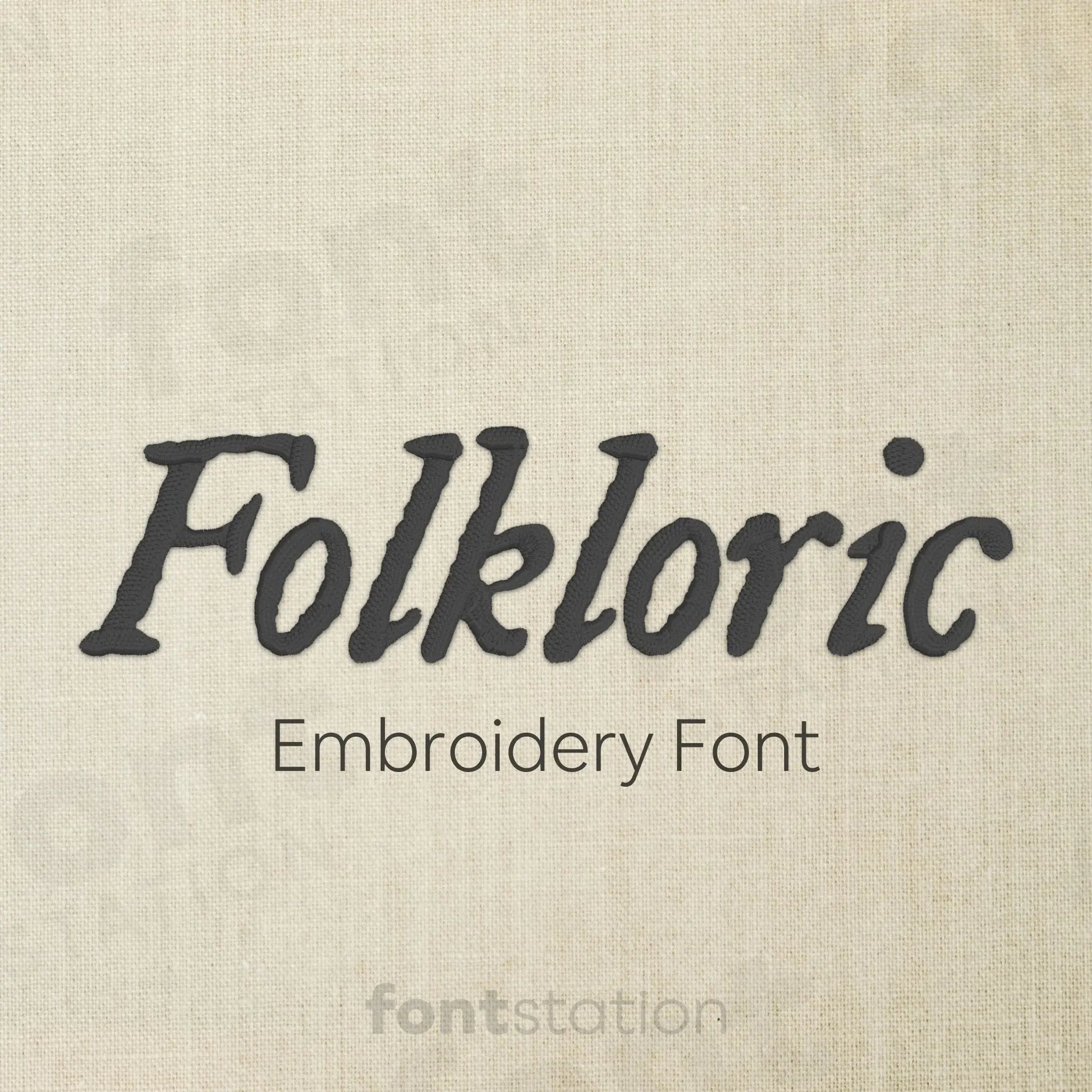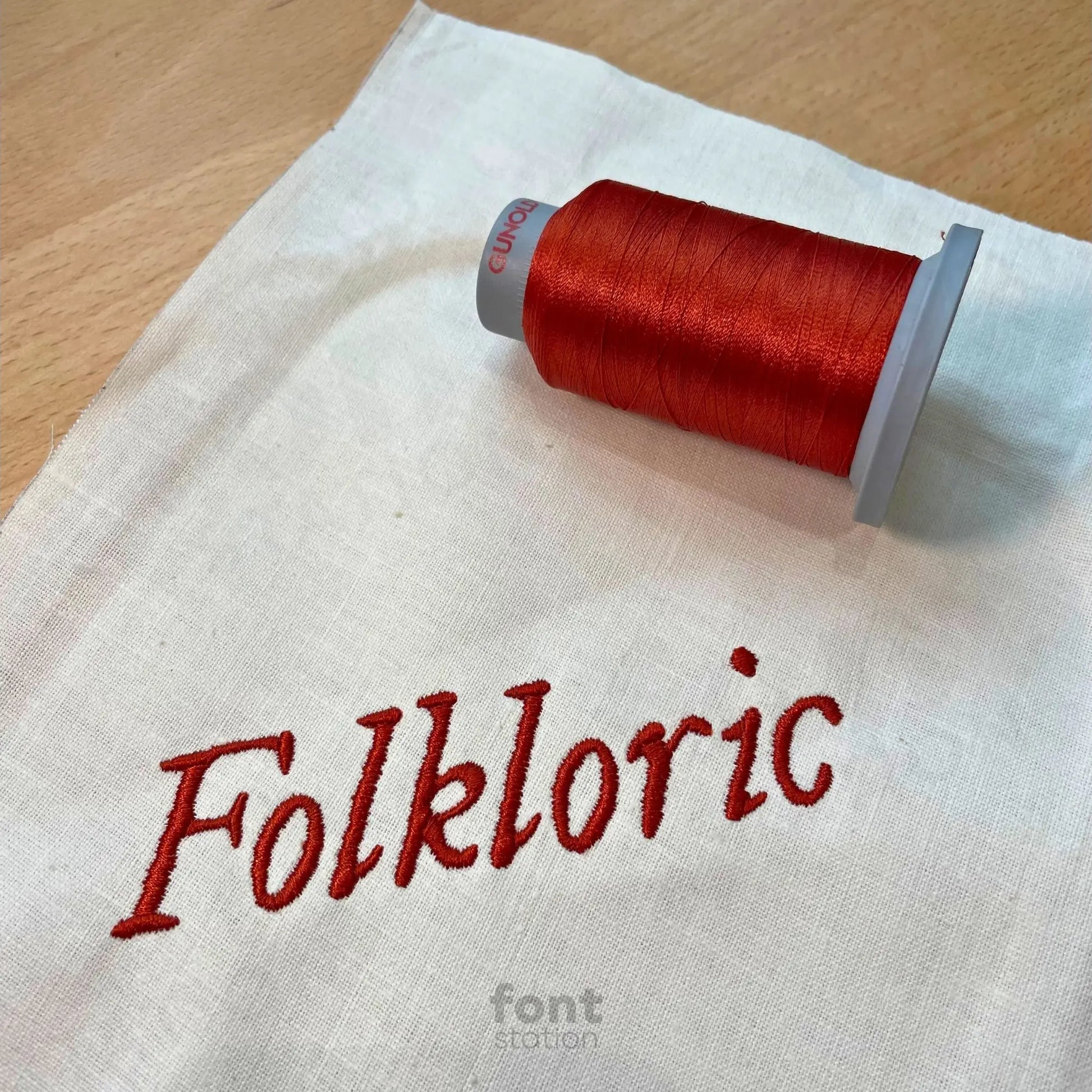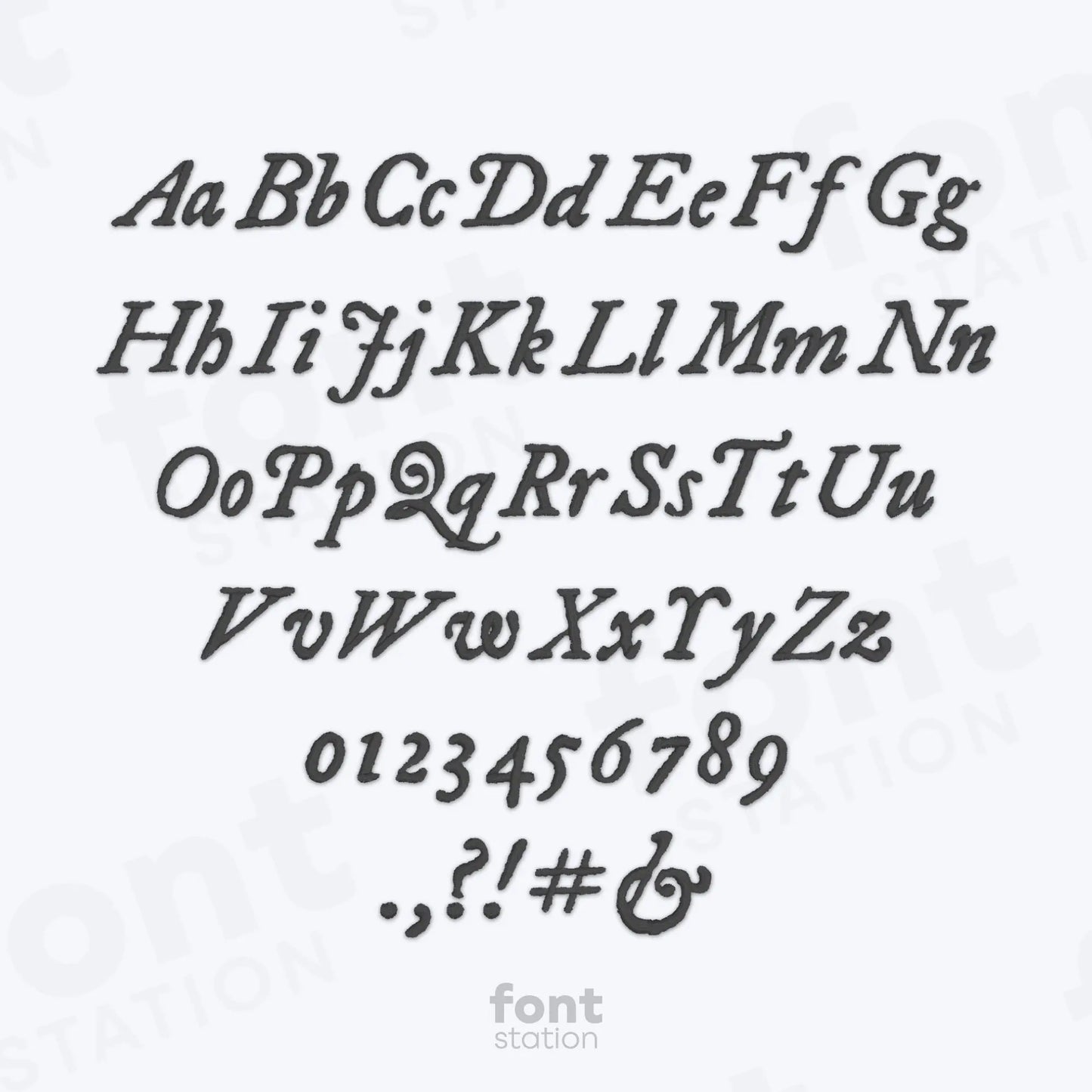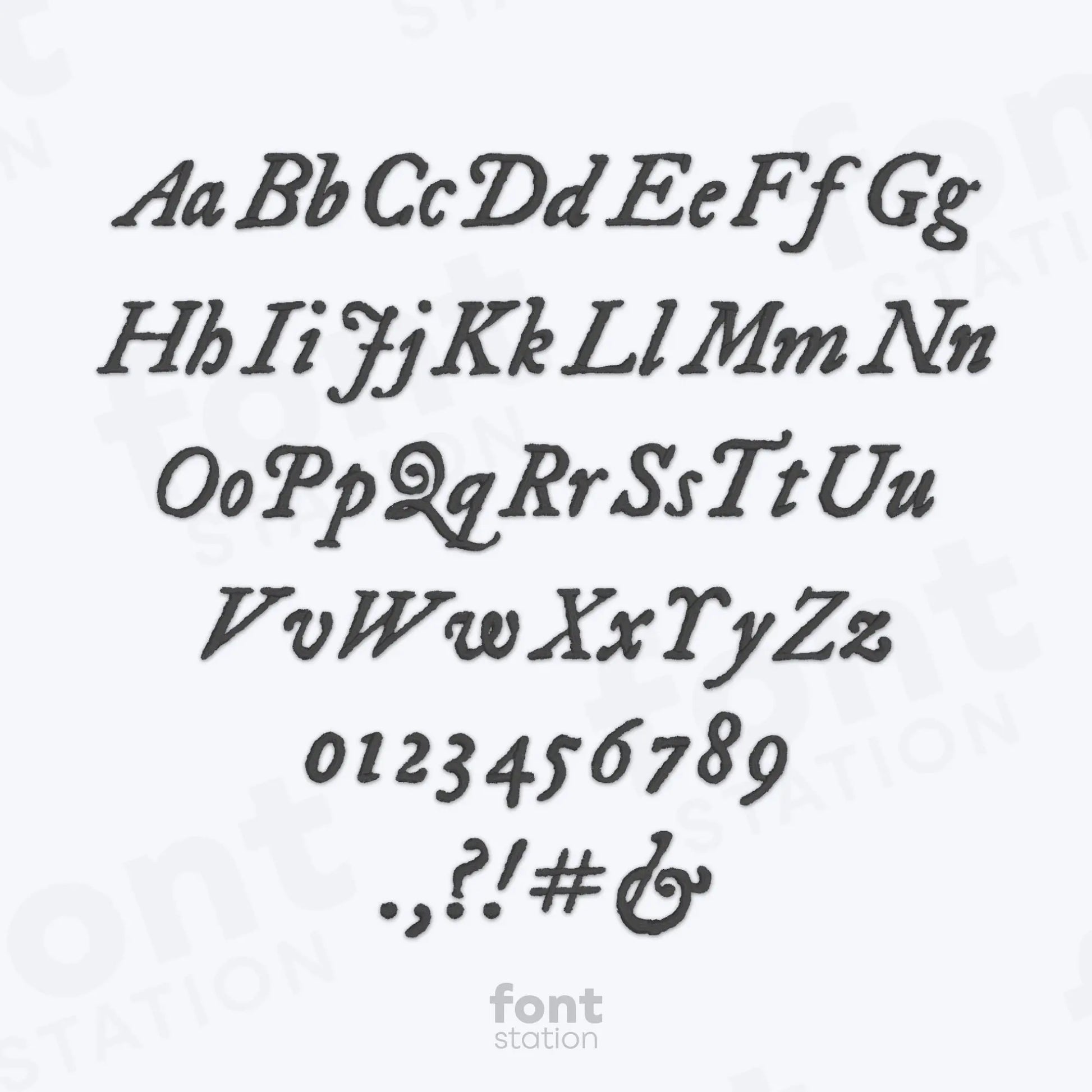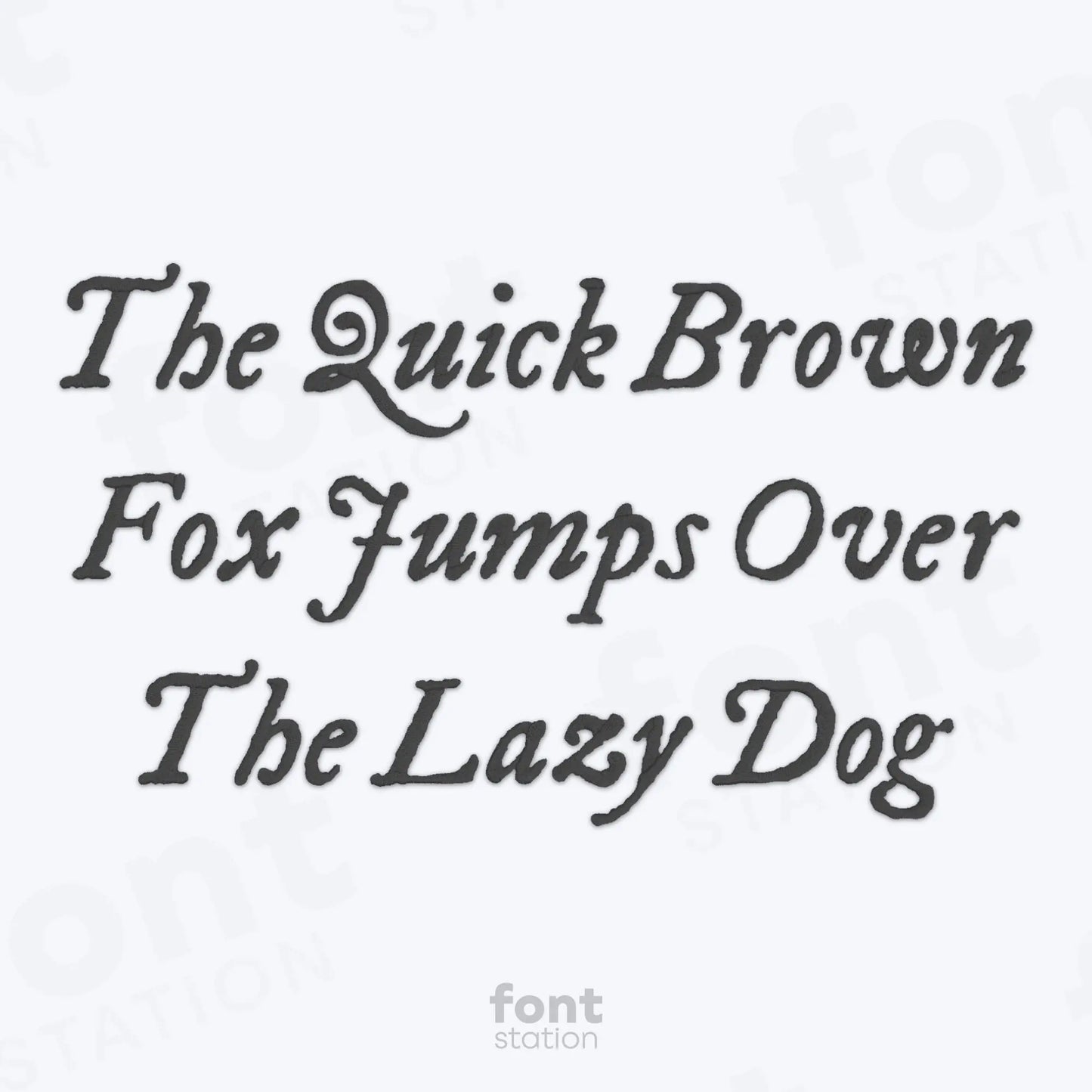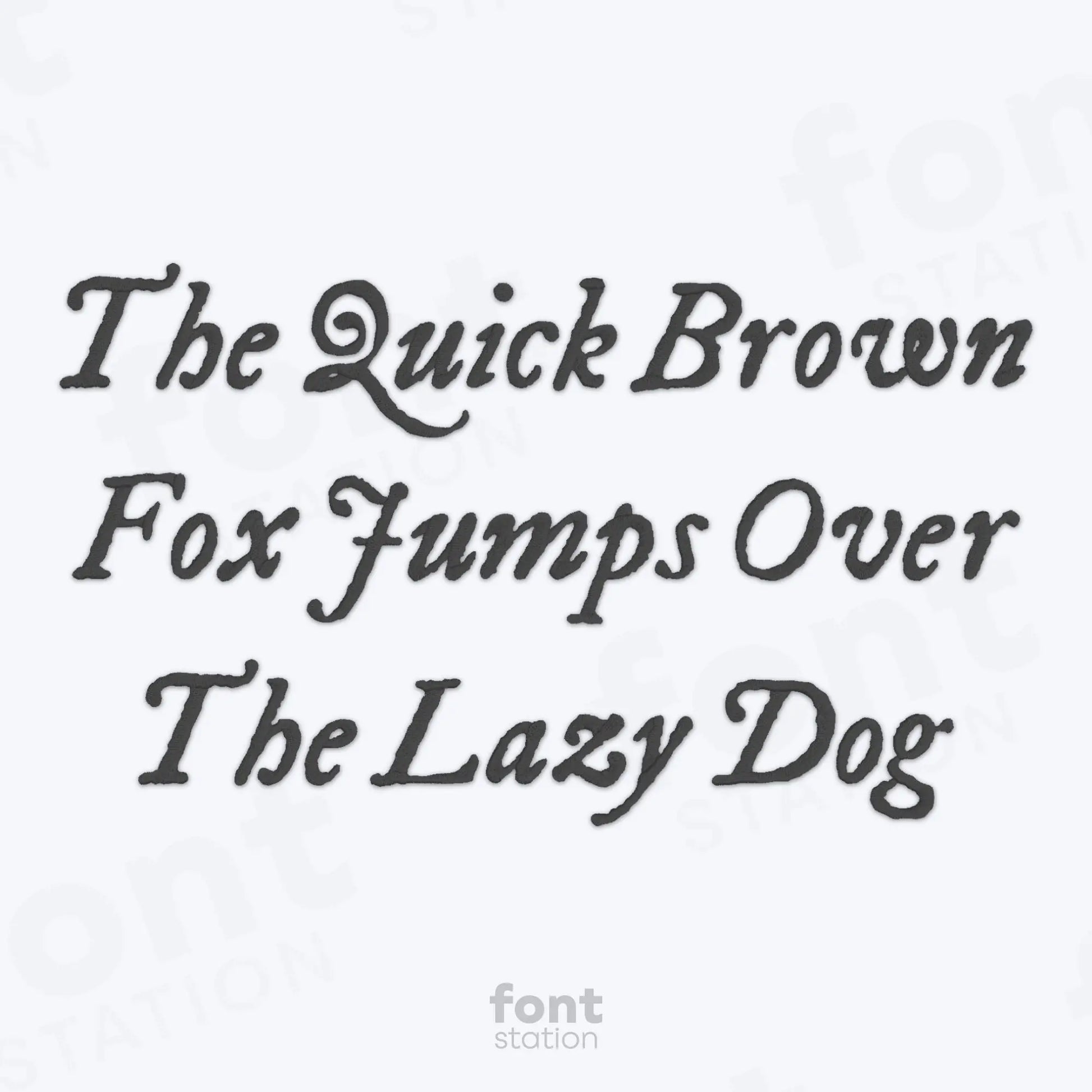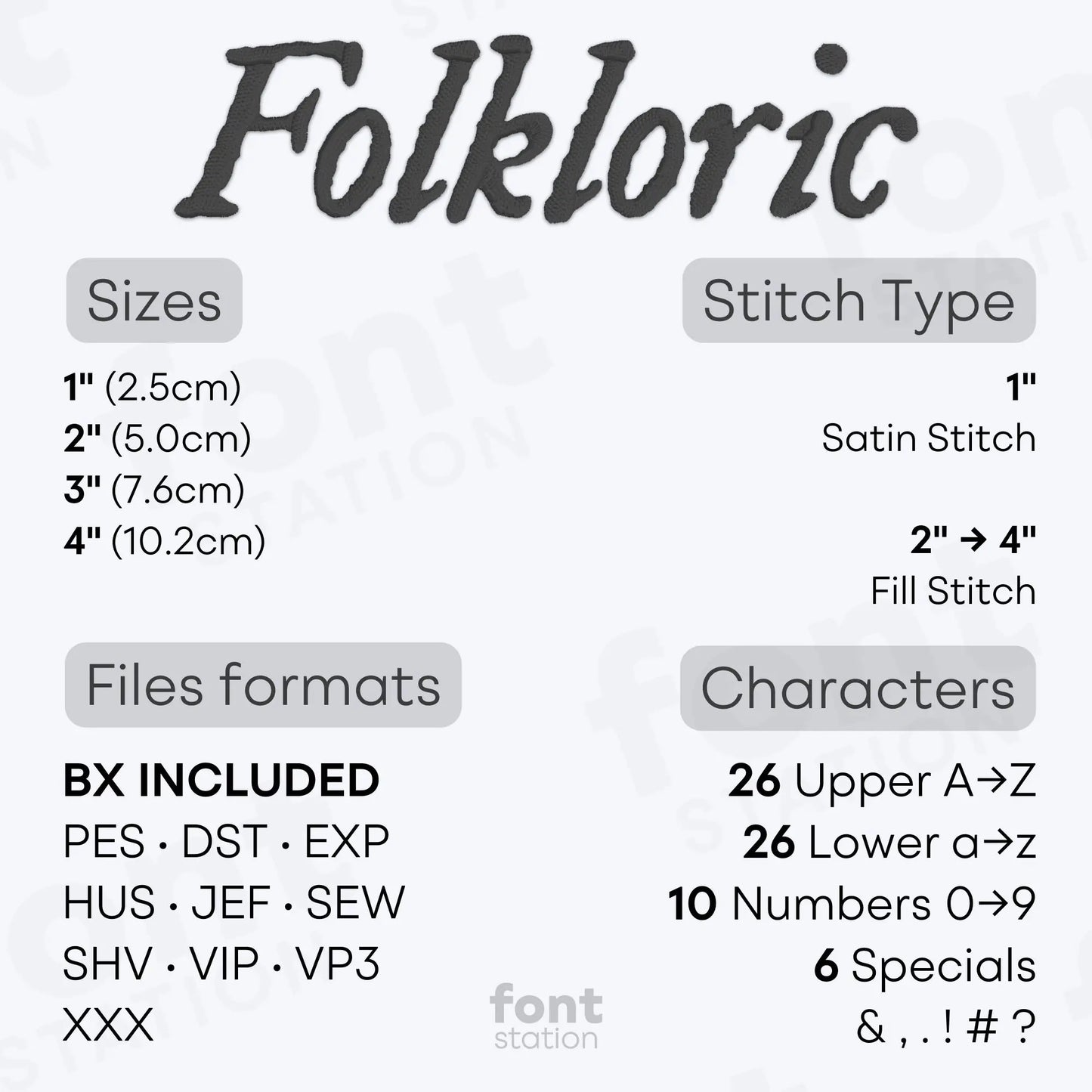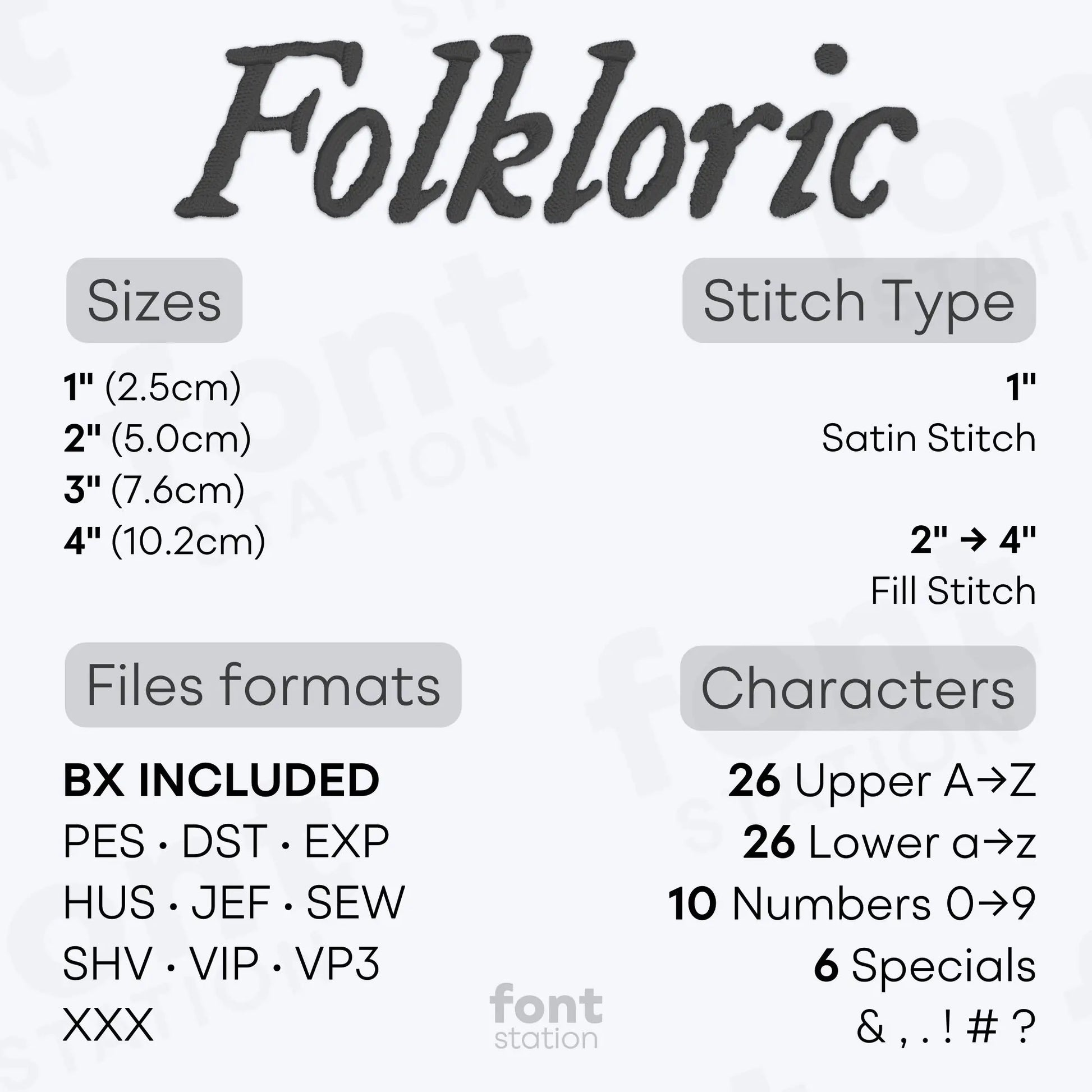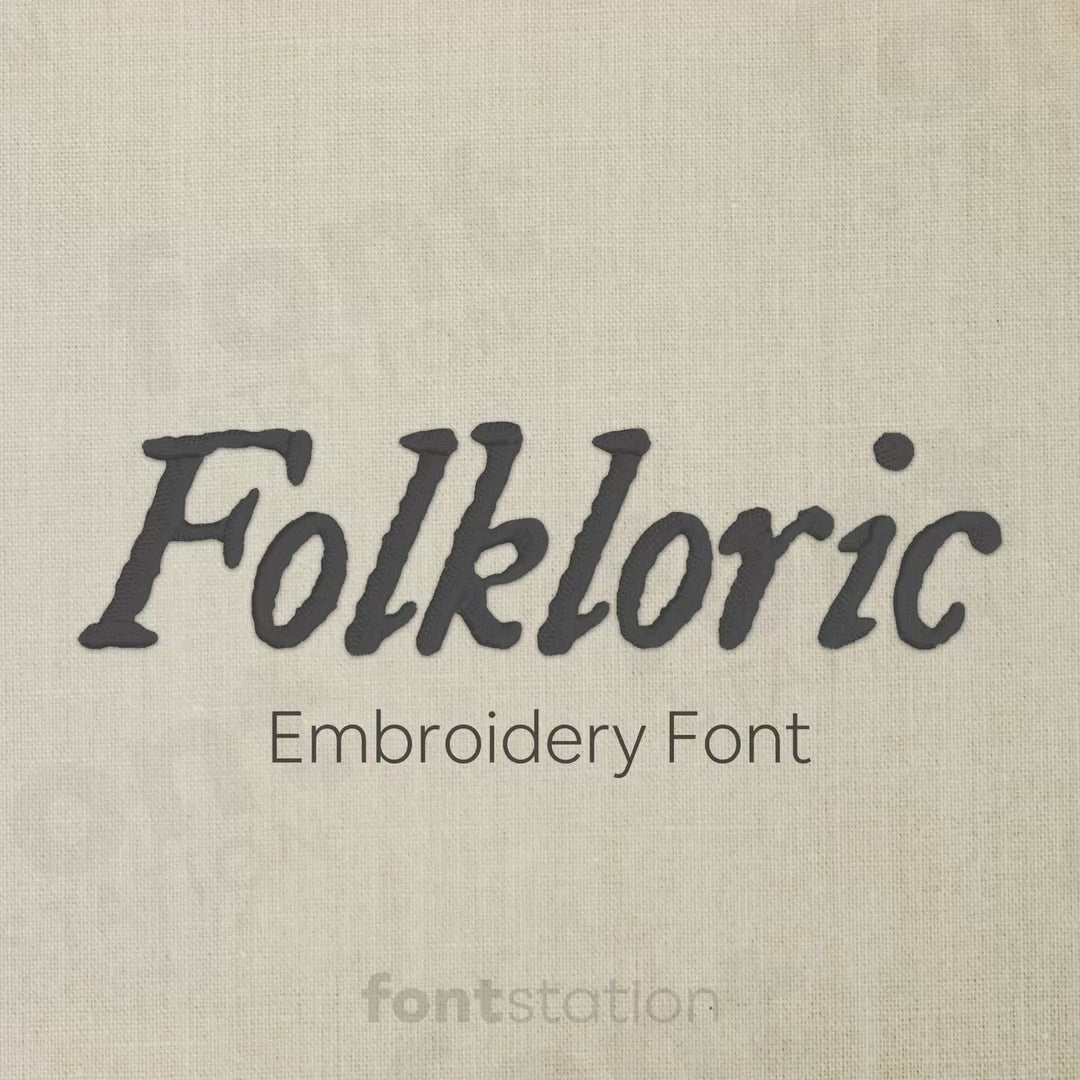
Folkloric Embroidery Font
Step into a world of folklore with our Folkloric embroidery font, a medieval alphabet perfect to stitch magical letters and vintage designs on your next project. This enchanting font is made for your embroidery machine and brings mystical charm to every stitch.
About the Folkloric Embroidery Font
The Folkloric embroidery font brings a mystical, medieval charm to your embroidery projects.
Inspired by vintage folklore and Old World lettering, our Folkloric embroidery font features a detailed, ornamental alphabet full of character. Perfect for creating magical names, spellbinding quotes, or medieval-themed designs, these embroidery letters are digitized for clean, precise stitching. Whether you're crafting a witchy project, fantasy-inspired decor, or something timeless and unique, this medieval embroidery font delivers stunning results. Includes BX, PES, DST, JEF, EXP, VP3, HUS and more, ready to stitch beautifully on any embroidery machine.